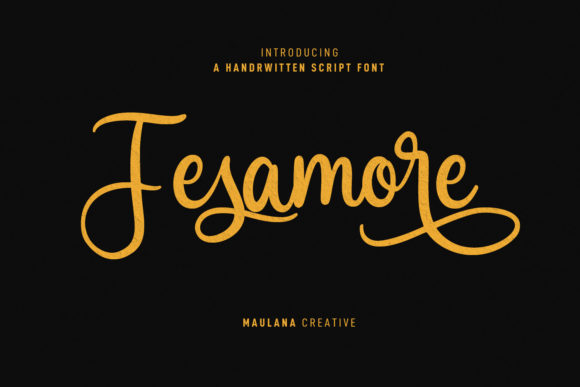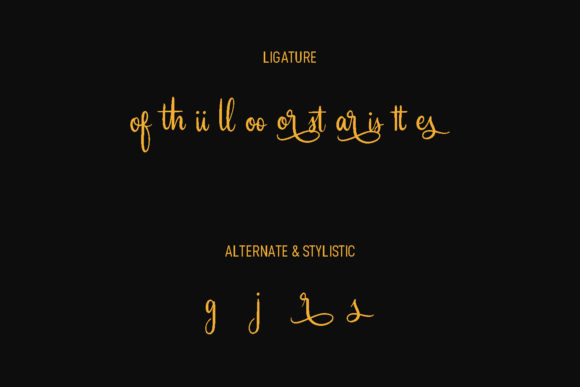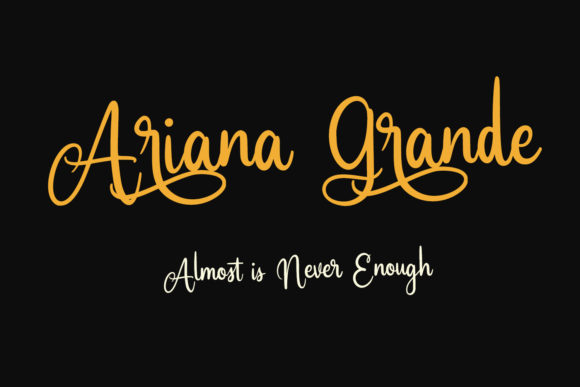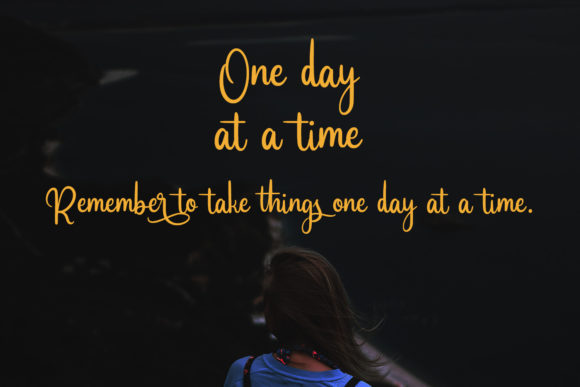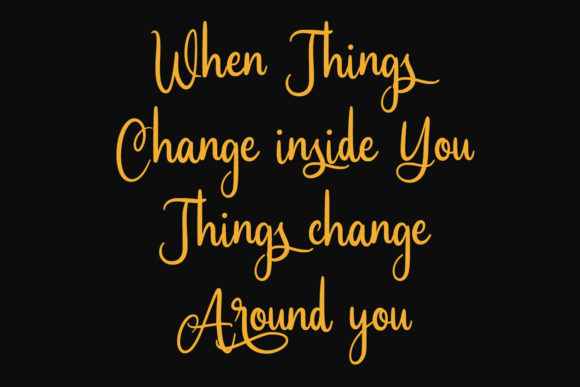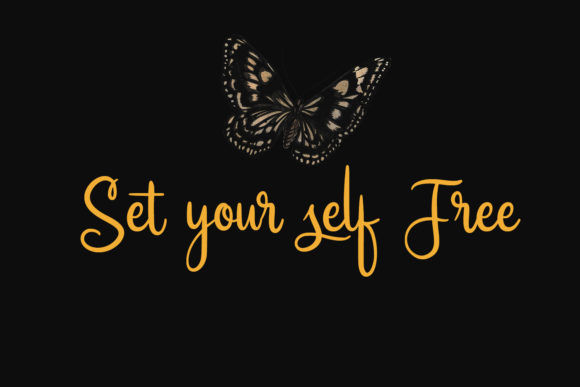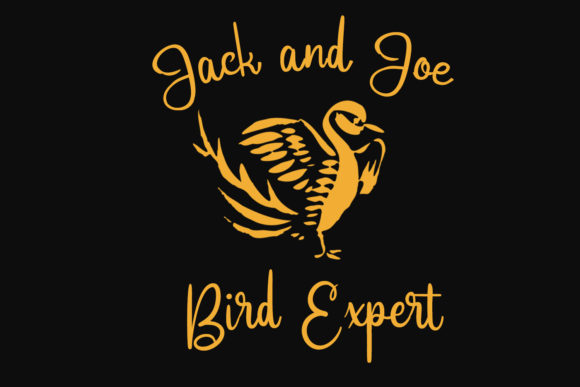
Fesamore Script Font
About Fesamore Script Font
Fesamore Script is a fancy and cursive script font. It features light contrast strokes, fun characters, ligatures and alternates. Fesamore will look extraordinary in a variety of contexts.